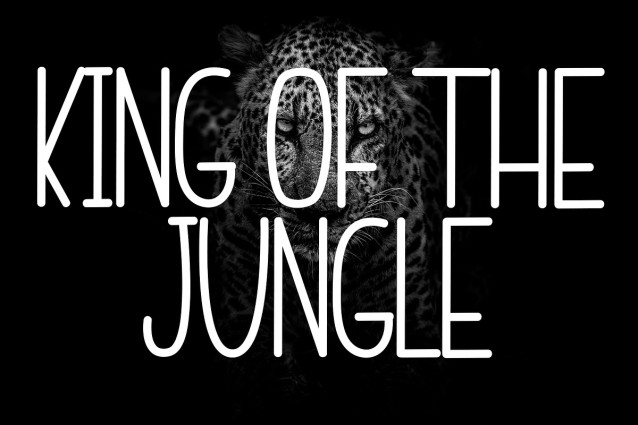
Capella Rock IV Final Font
Capella Rock IV Final Font, This bundle features strong, confident and powerful typefaces designed to work great with sports logos, club branding, apparel applications, labels and more.
They were key to start in the LJDS dream, between 2013 and 2014. Simple processes of a graphic arts university student, trying to define his identity as a designer and his vocation in art. Capella Rock were sources of simple and crude elaboration that were well received in the trade and were part of several rock bands at that time.
We closed the Capella Rock cycle with this novel project that tried to preserve the features of the old and obsolete versions, with a modern look and double style for multiple compositions and combinations both in illustrations and advertising banners etc.